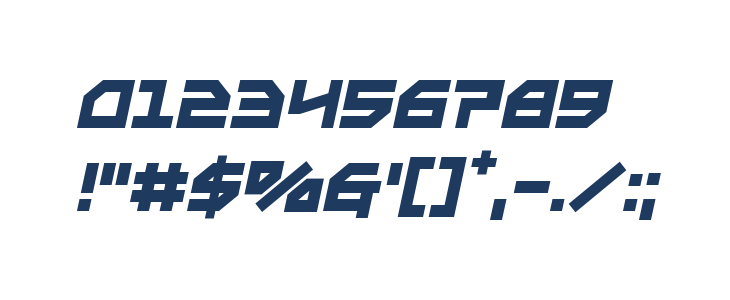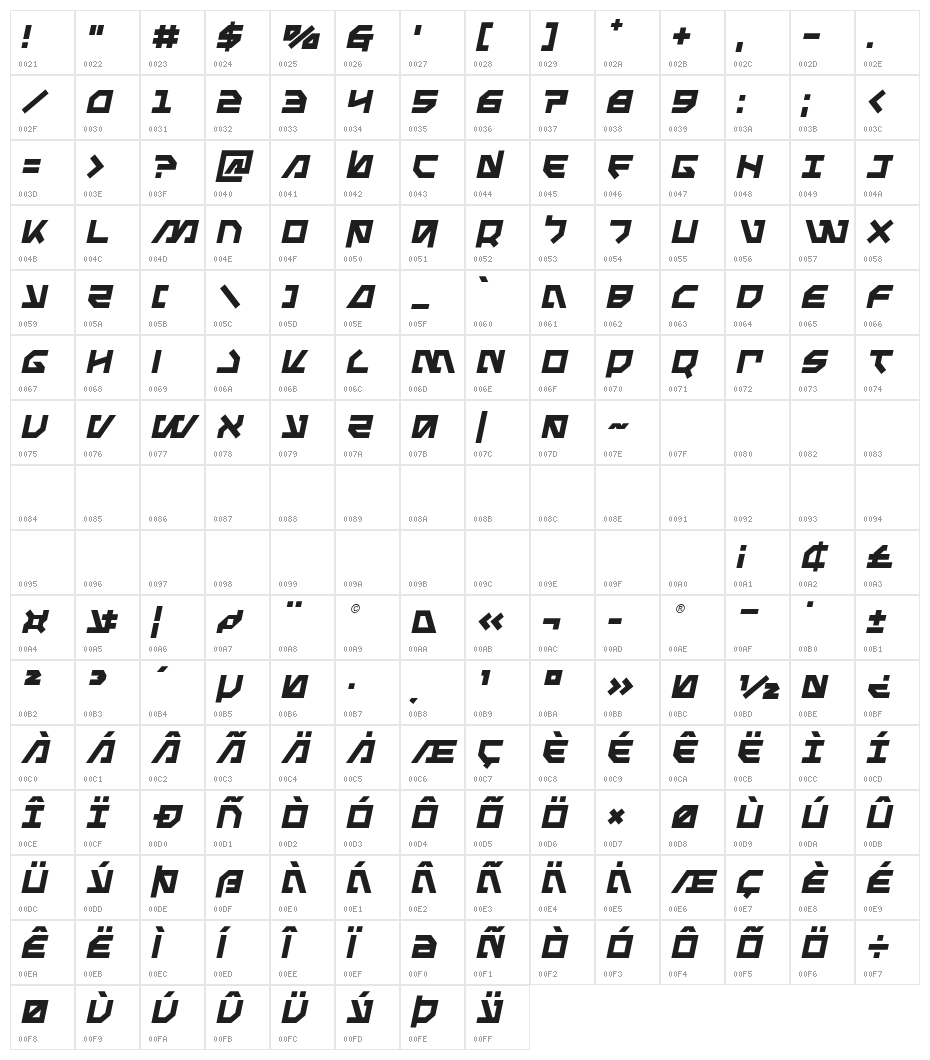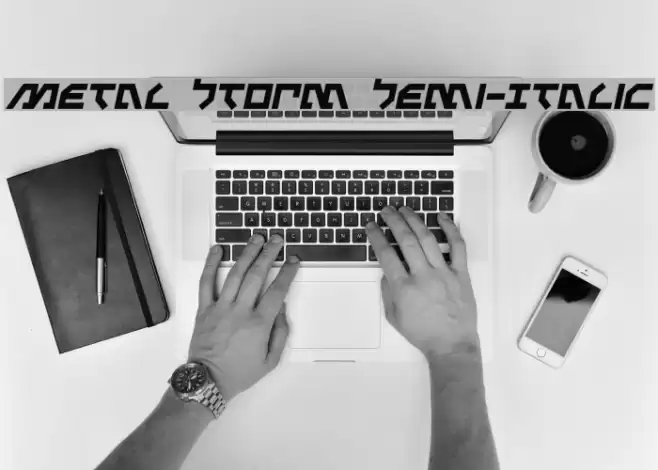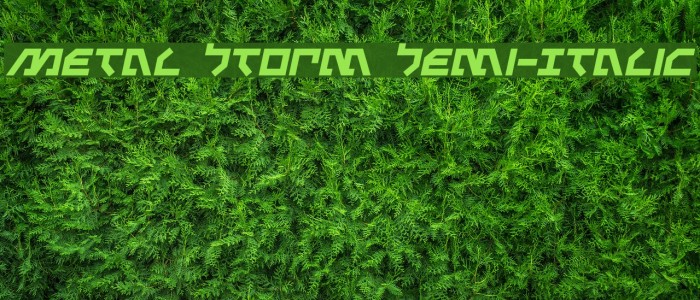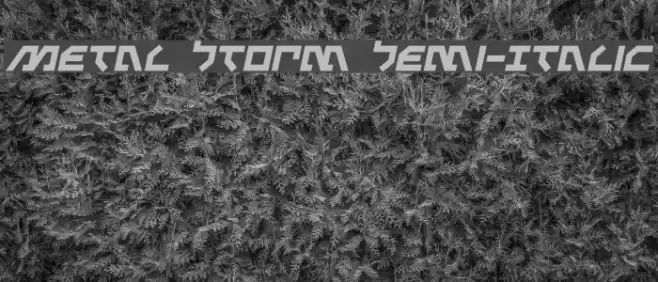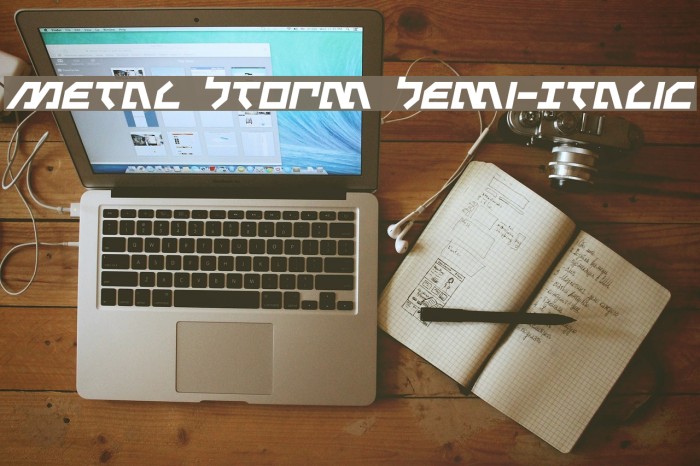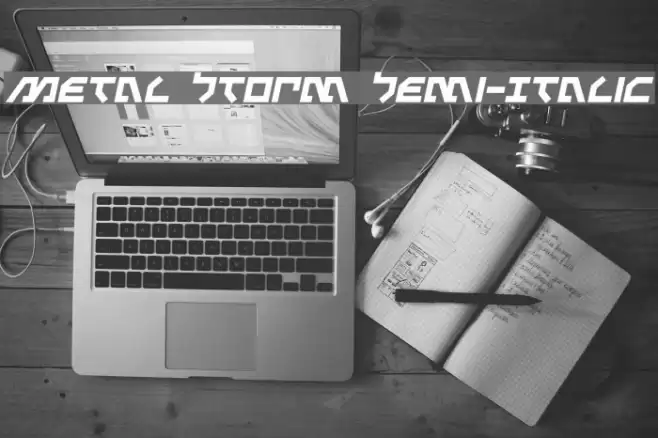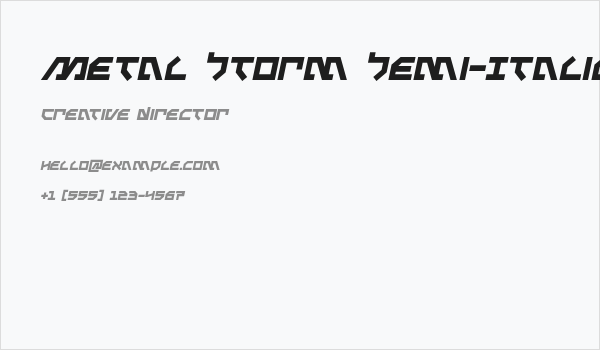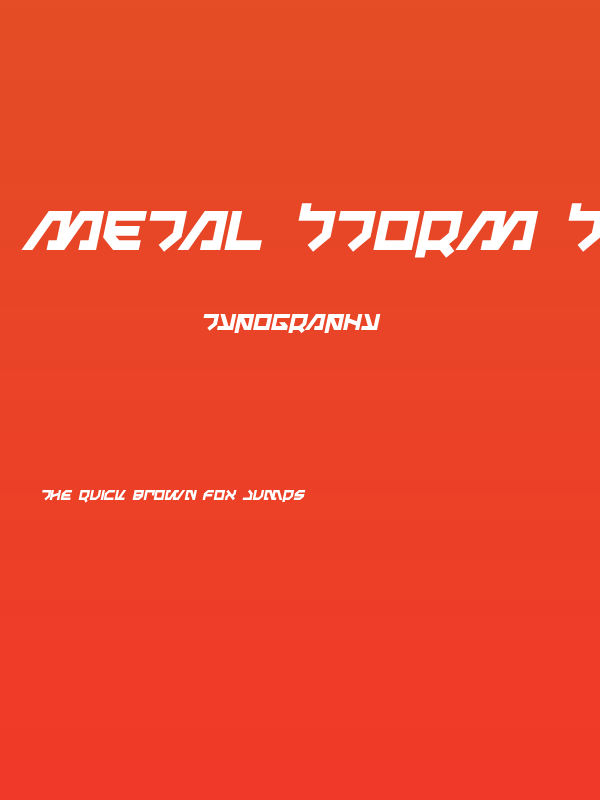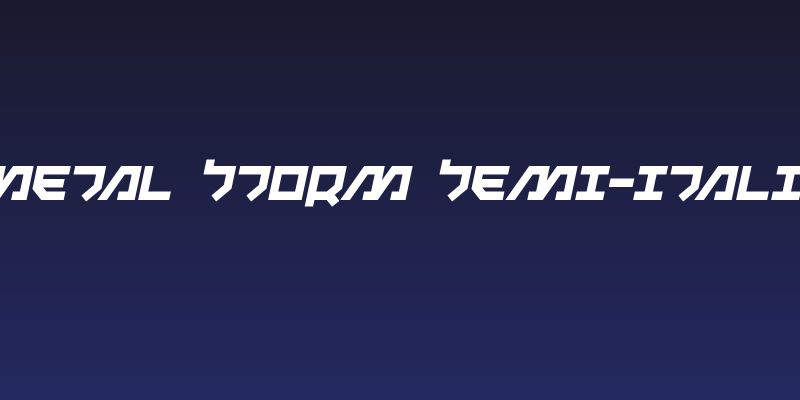
Metal Storm Semi-Italic Font
Metal Storm Semi-Italic Description
This font features a bold, angular design with a futuristic and aggressive aesthetic. The characters are sharply cut with a semi-italic slant, giving a sense of motion and dynamism. The uppercase and lowercase letters maintain a consistent style, with each character exhibiting a unique geometric form. The numbers and special characters follow the same design principles, ensuring uniformity across all glyphs. This font is ideal for projects that require a strong, impactful visual presence, such as gaming titles, sci-fi themes, or technology branding.
| Proposed Projects | Ideal for gaming titles, sci-fi themes, technology branding, and dynamic posters. |